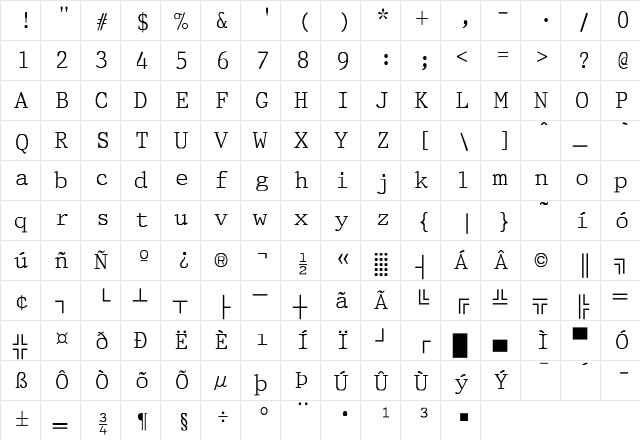
PrestigePica-Normal Regular Font Preview
PrestigePica-Normal Regular
Design Context for PrestigePica-Normal Typeface
PrestigePica-Normal offers clean, dependable letterforms without strong stylistic allegiance, making it a practical choice for designers who need flexibility.